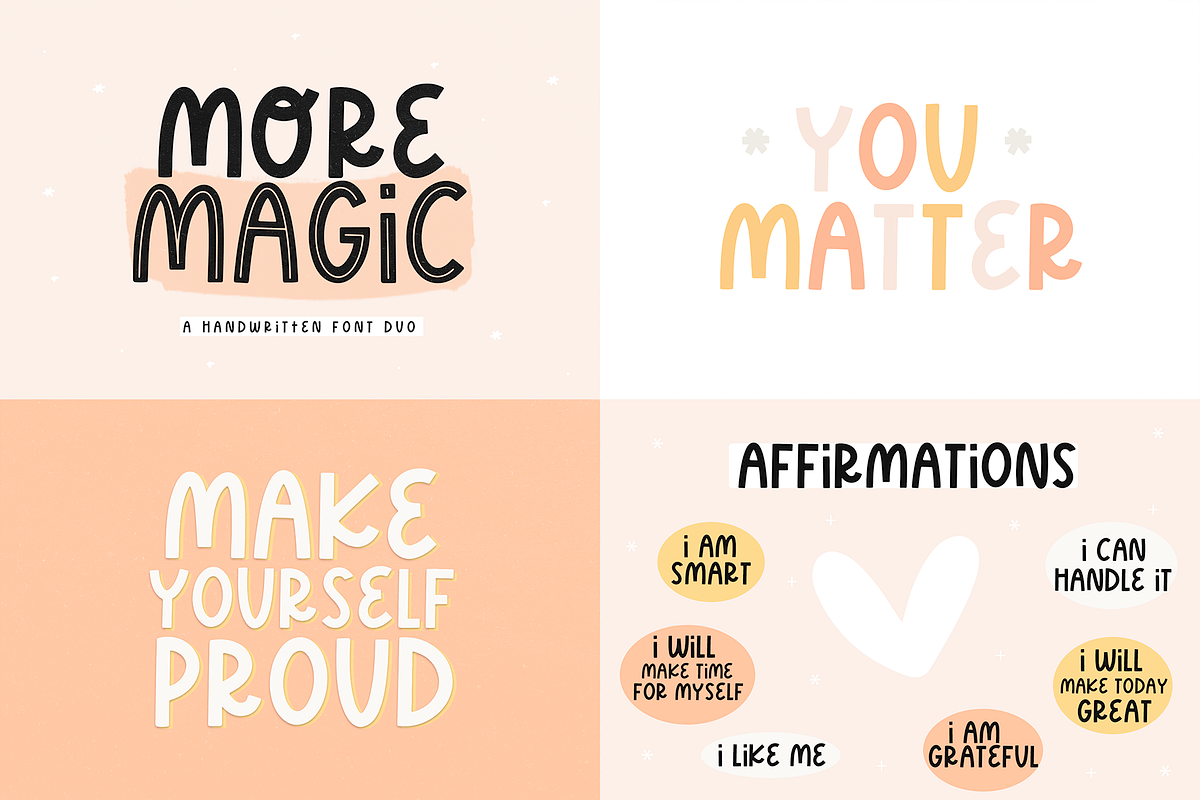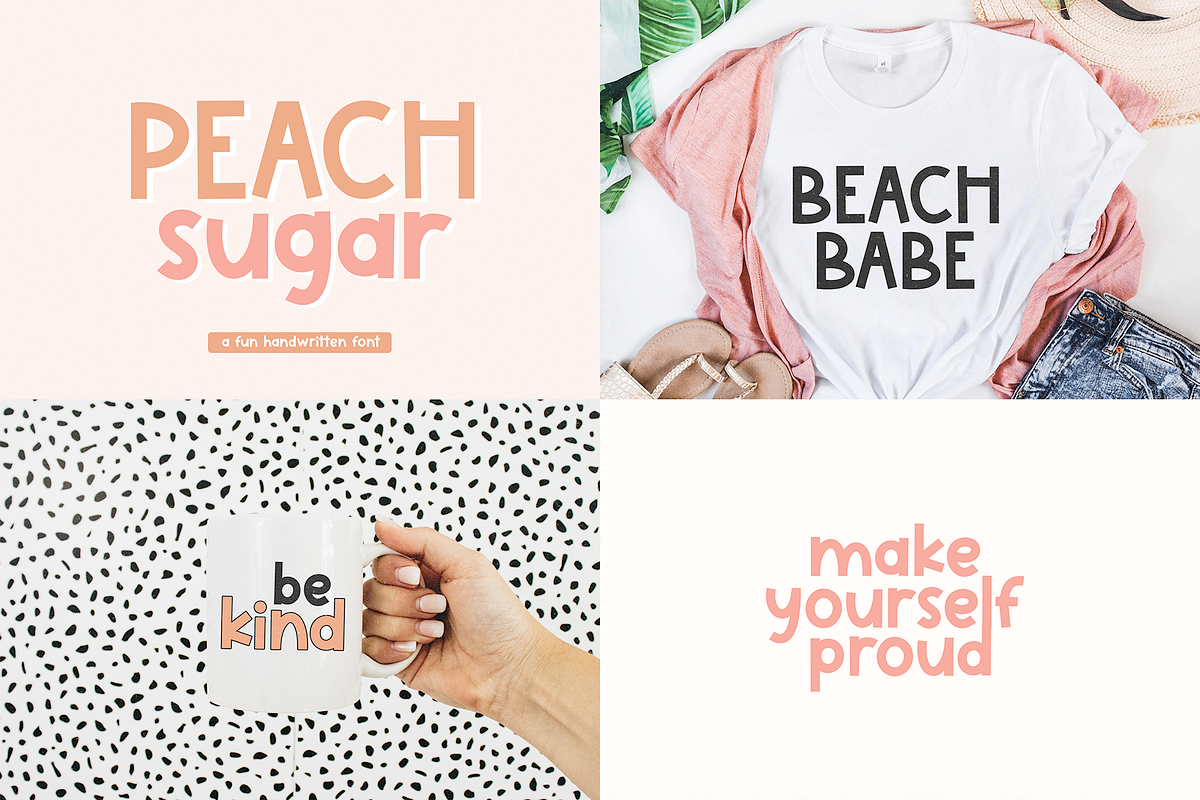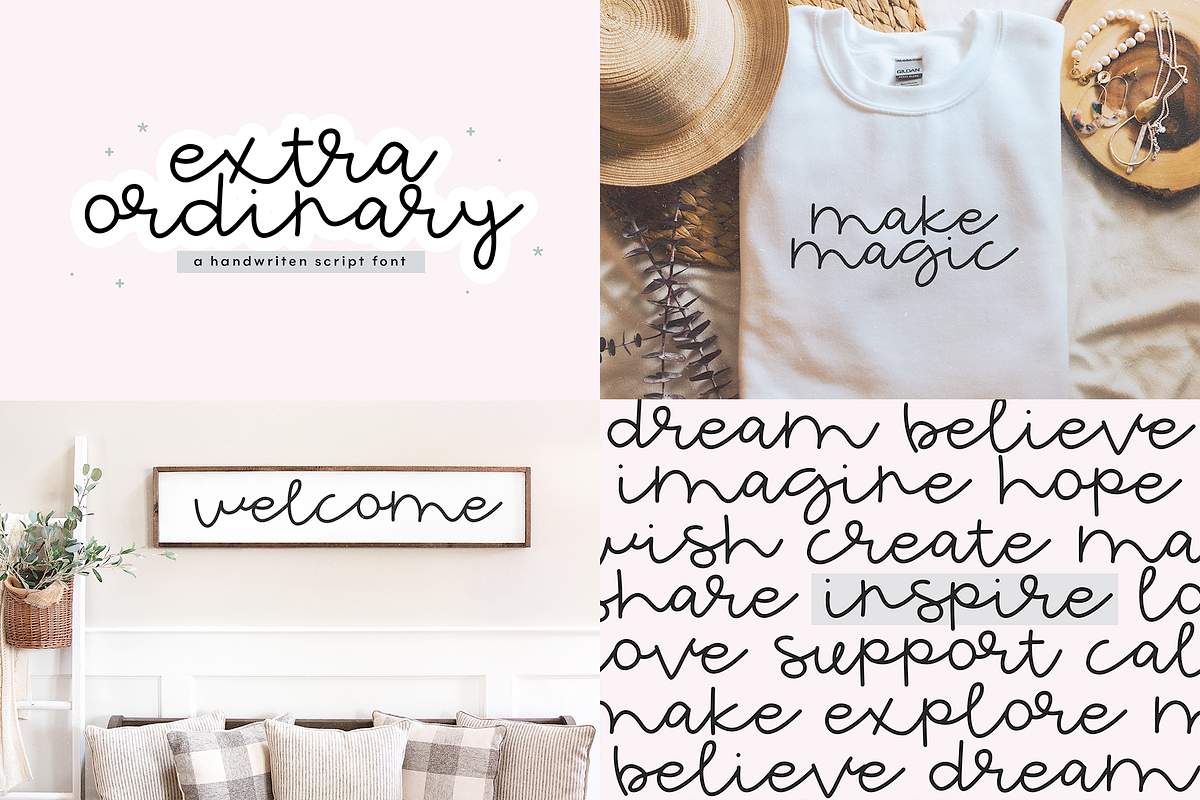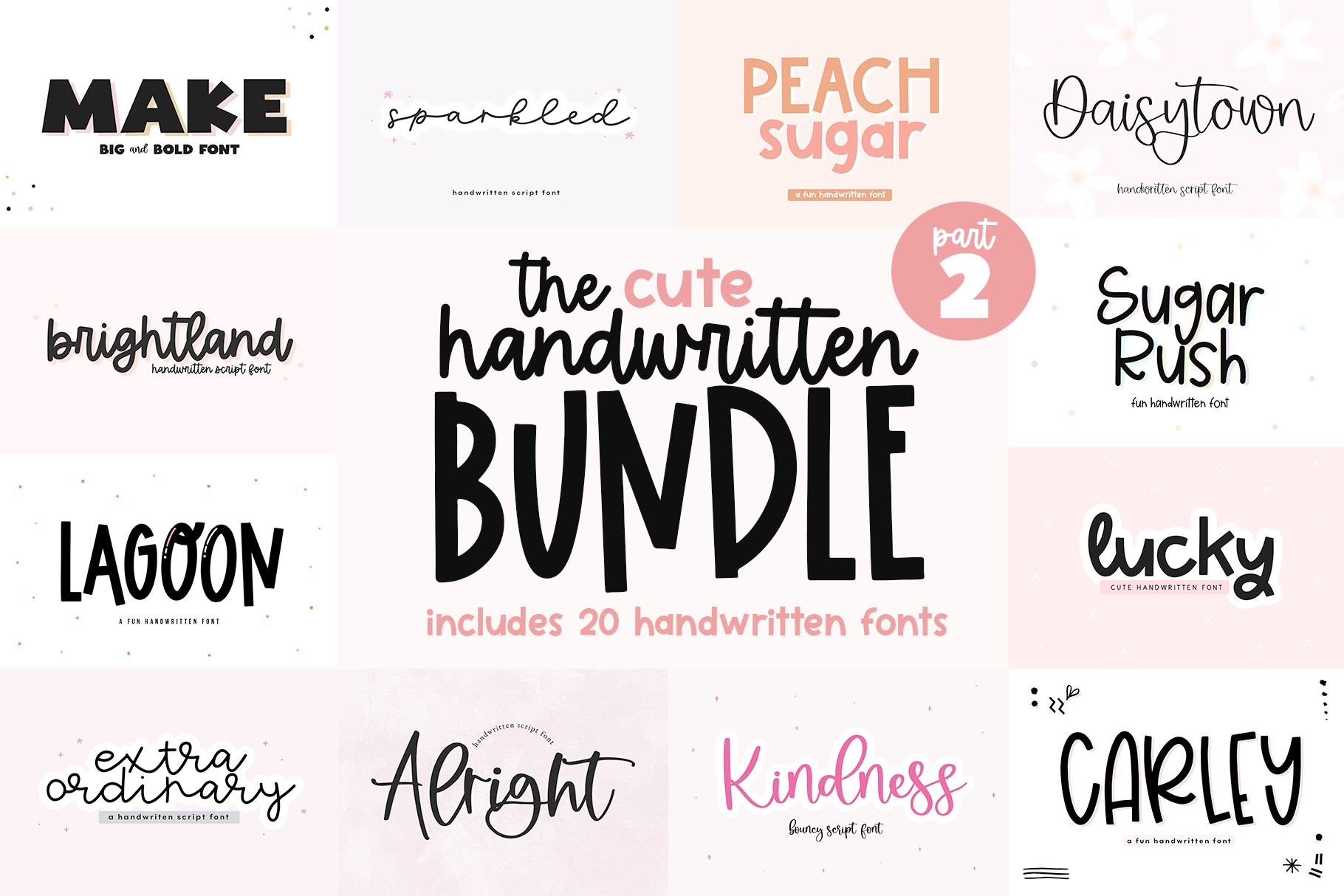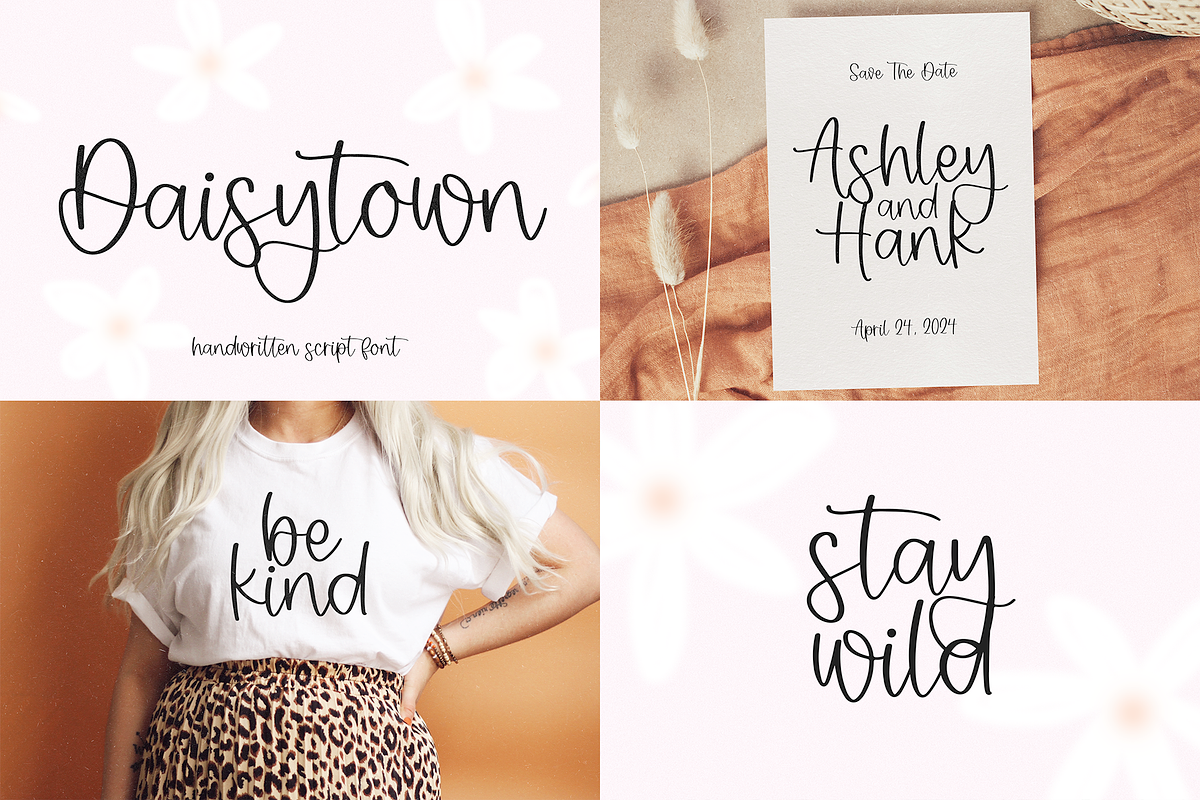
Cute Handwritten Font Bundle | Vol 2
THE CUTE HANDWRITTEN BUNDLE / PART 2
This bundle includes a handpicked selection of fonts - a little bit of everything + some new fonts!
Includes
- Brightland
- Alright
- Sugar Rush
- Daisytown
- Make
- Sparkled
- Sour Grape
- Peach Sugar
- Pink Pear
- Jackfruit
- Sugar Moon Print
- Sugar Moon Script
- Extraordinary
- Lagoon
- Kindness
- More Magic
- Lucky
- Carley
- Wishful Thinking